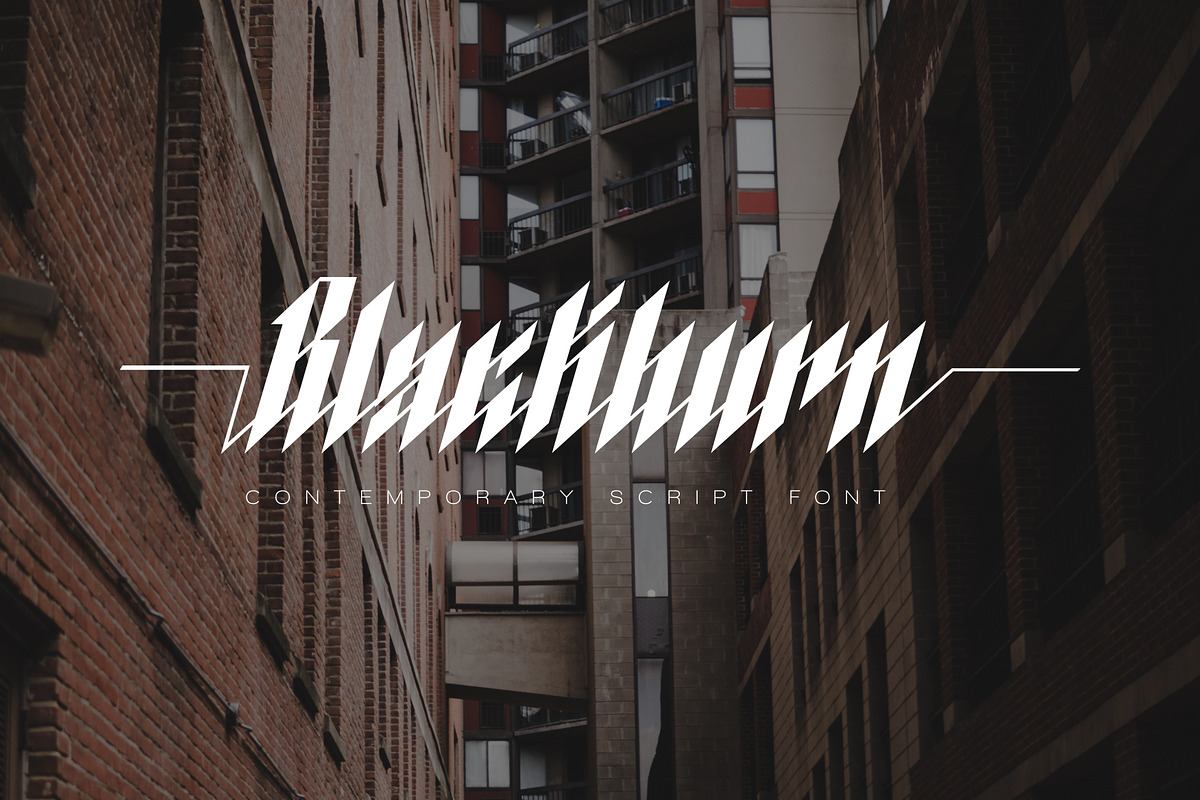
Blackburn - Modern Blackletter Font Free Download is a bold and edgy typeface that fuses traditional blackletter style with a contemporary twist. Perfect for tattoos, music covers, fashion branding, gothic-themed posters, and streetwear designs, this font brings a strong, rebellious energy to any visual. Its sharp angles and stylized letterforms make a powerful statement while keeping a clean, modern aesthetic.
Designed for high-impact headlines and eye-catching logos, Blackburn stands out in both digital and print formats. It’s ideal for designers looking to blend old-world elegance with a fresh, modern vibe.